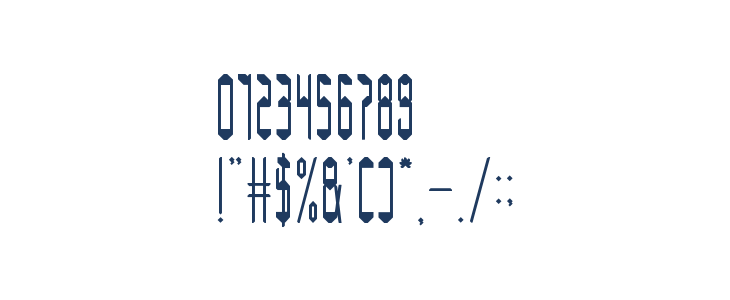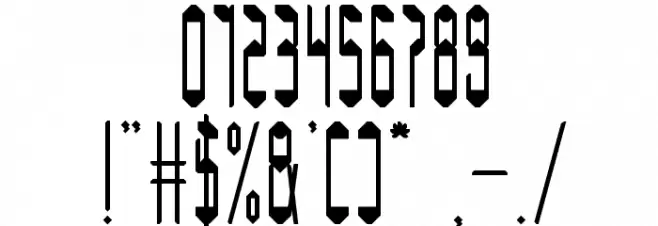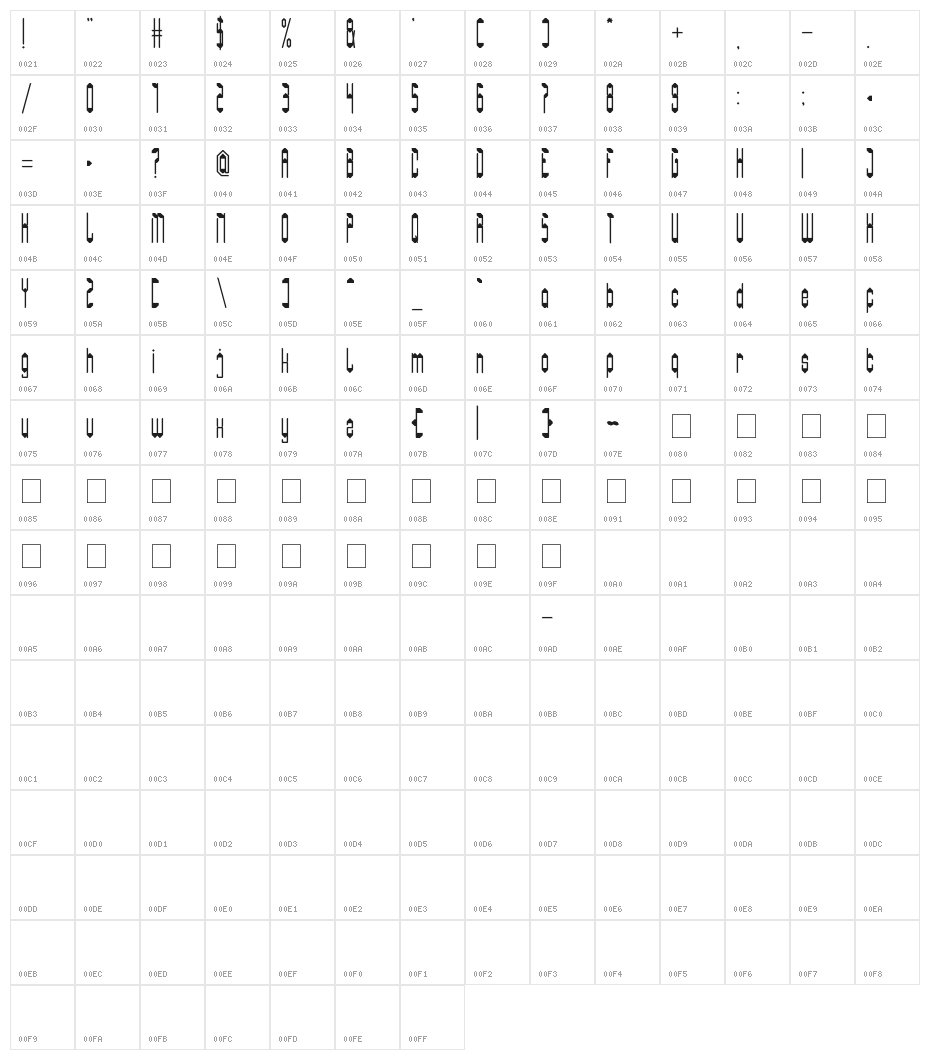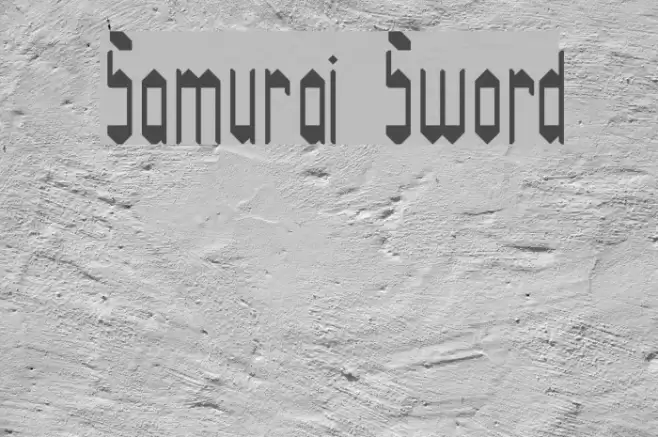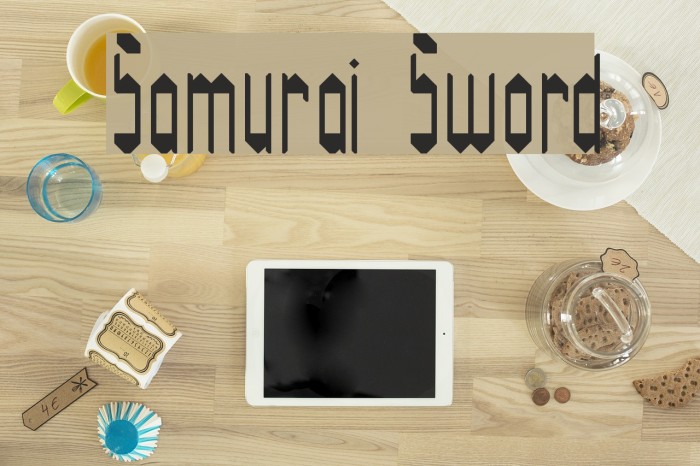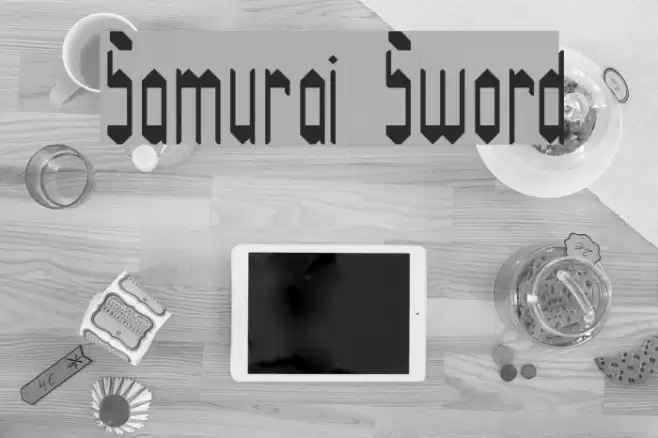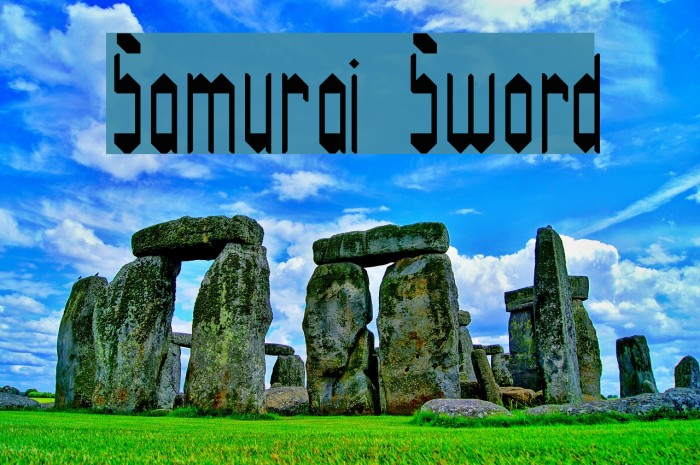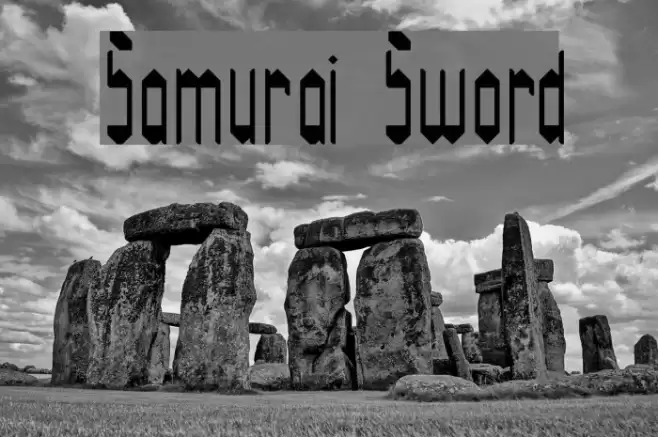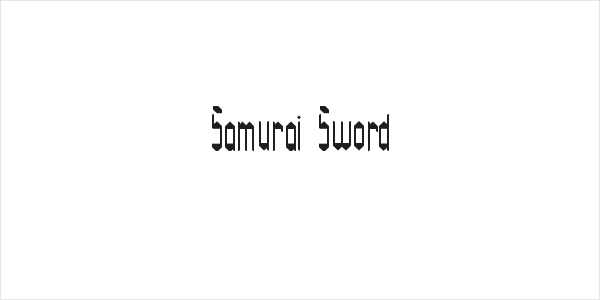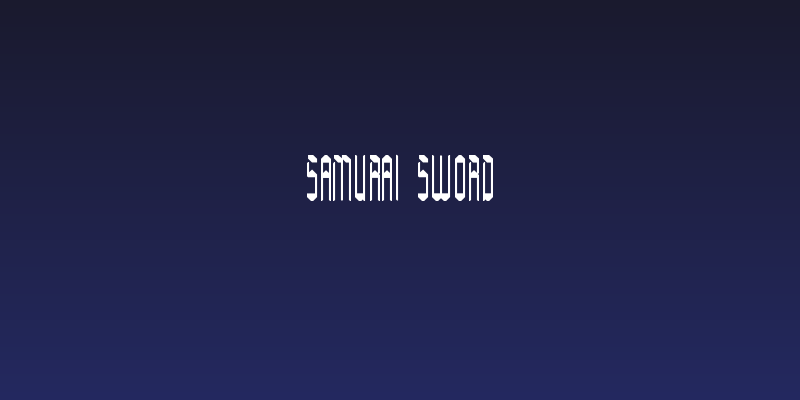
Samurai Sword Font
Samurai Sword Description
This font features a bold and striking design with sharp, angular edges reminiscent of traditional Japanese aesthetics. The characters are tall and narrow, with a distinct geometric style that gives them a modern yet historical feel. The uppercase and lowercase letters maintain a consistent height, creating a uniform appearance. The numerals and special characters follow the same angular theme, ensuring cohesion across all elements. This font's unique style makes it ideal for projects that require a touch of the exotic or a nod to samurai culture.
| Proposed Projects | Ideal for branding, posters, and designs that require a cultural or historical theme. |